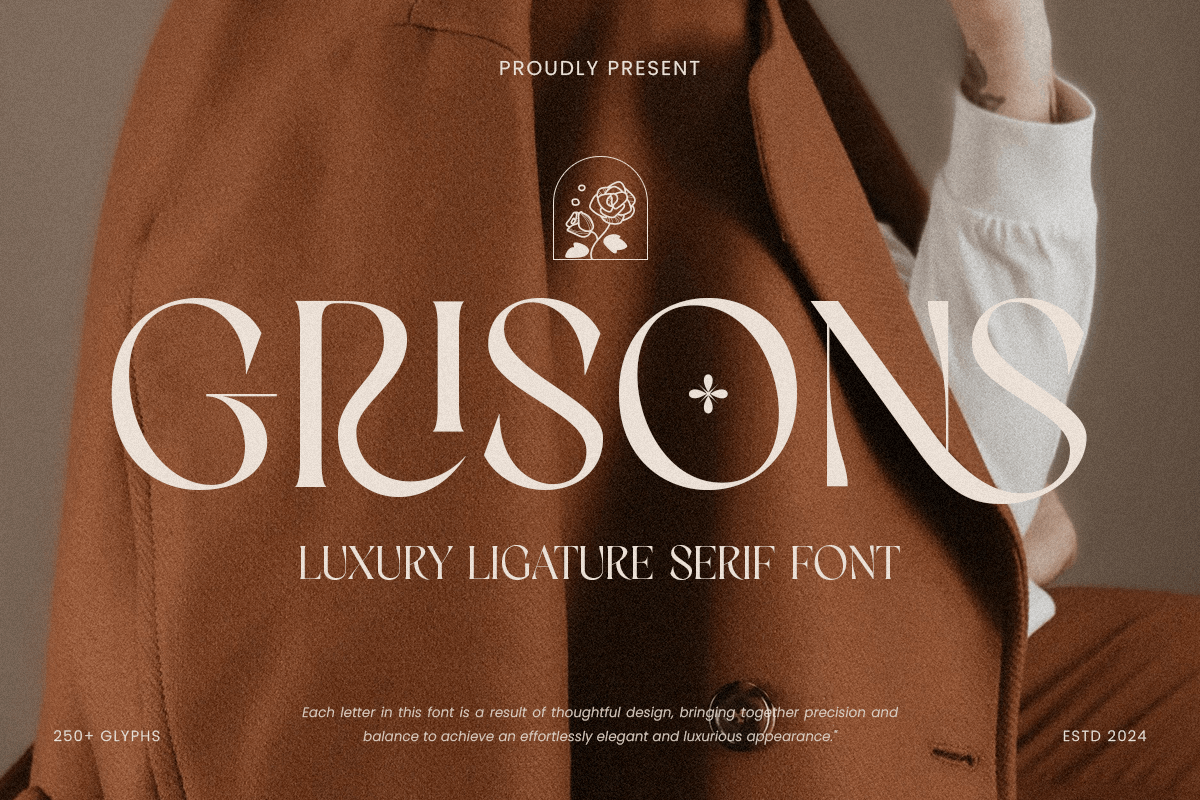
Grisons
-Luxury Ligature Serif FontGrisons - Luxury Ligature Serif Font
Grisons is a luxury ligature serif font designed to bring timeless beauty to your projects. With its graceful ligatures and refined serifs, it exudes sophistication and charm.
Perfect for High-End Creations
Ideal for branding, editorial layouts, invitations, and luxury packaging, Grisons enhances every design with its upscale aesthetic. It’s a font crafted for designers seeking to create memorable and elegant visuals.
Sophisticated Ligatures and Style
The unique ligatures of Grisons set it apart, adding a bespoke touch to every design. Its balance of modern flair and classic elements makes it versatile and captivating for any creative endeavor.
Grisons Luxury Ligature Serif Font Features: